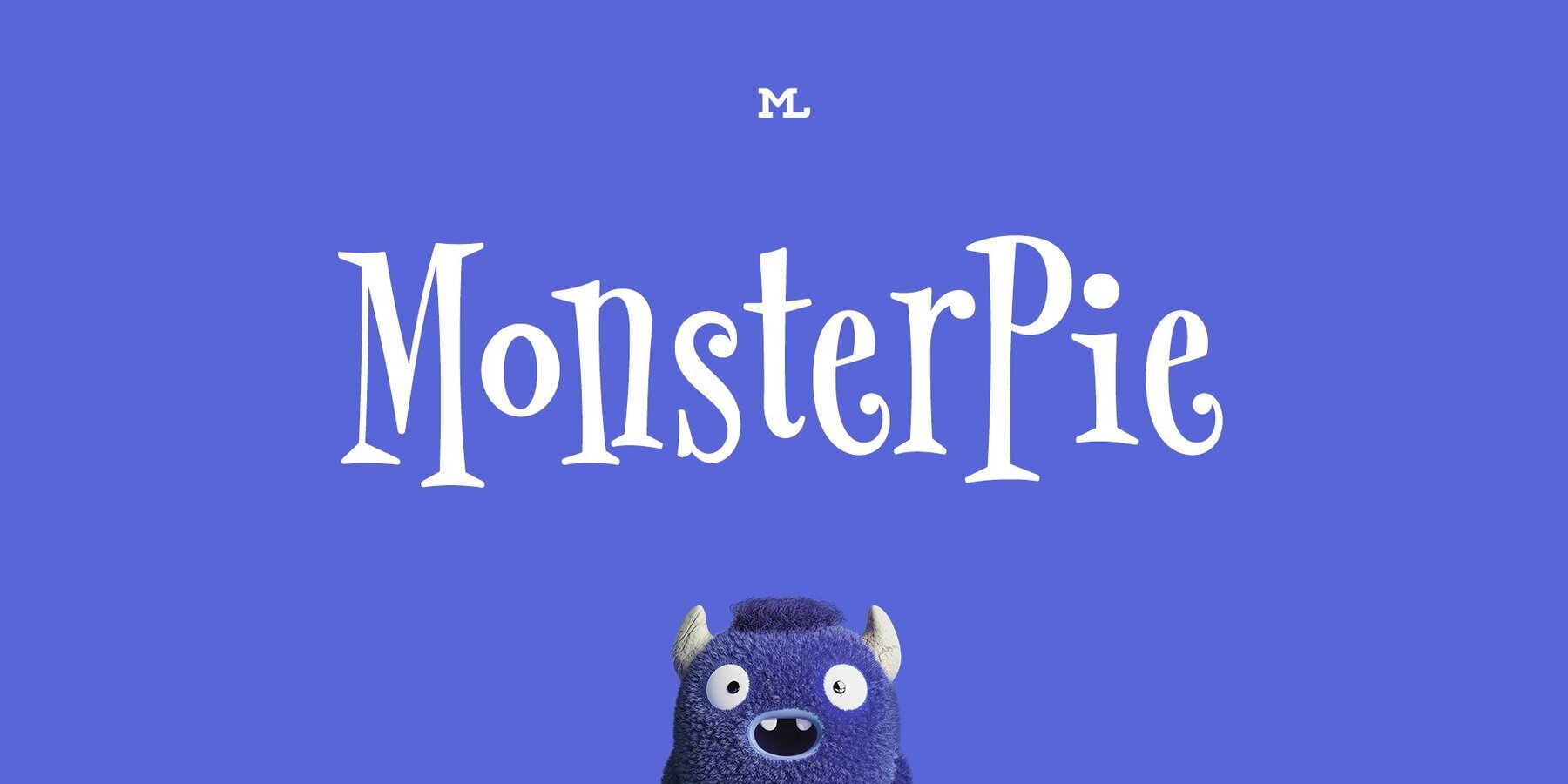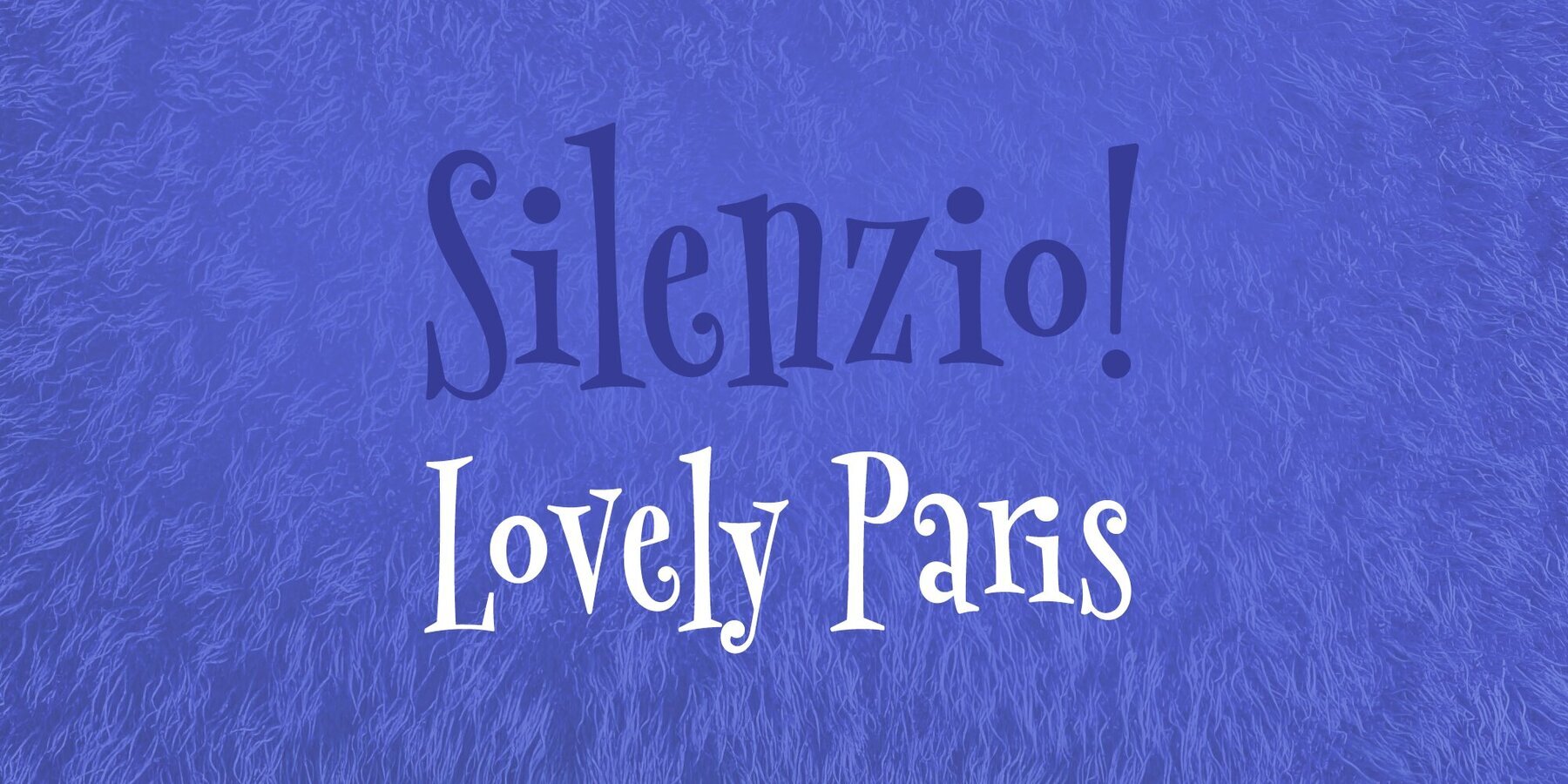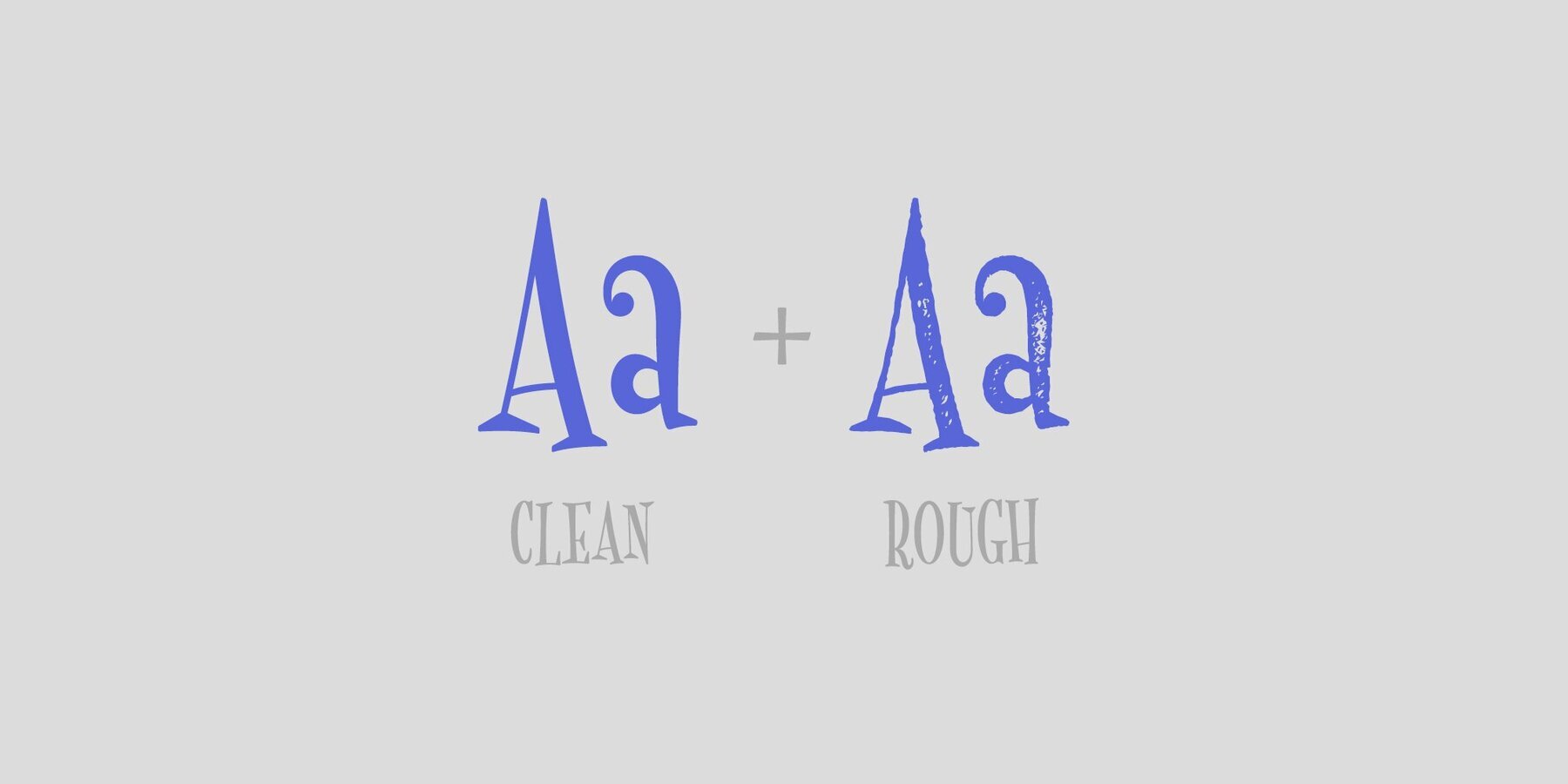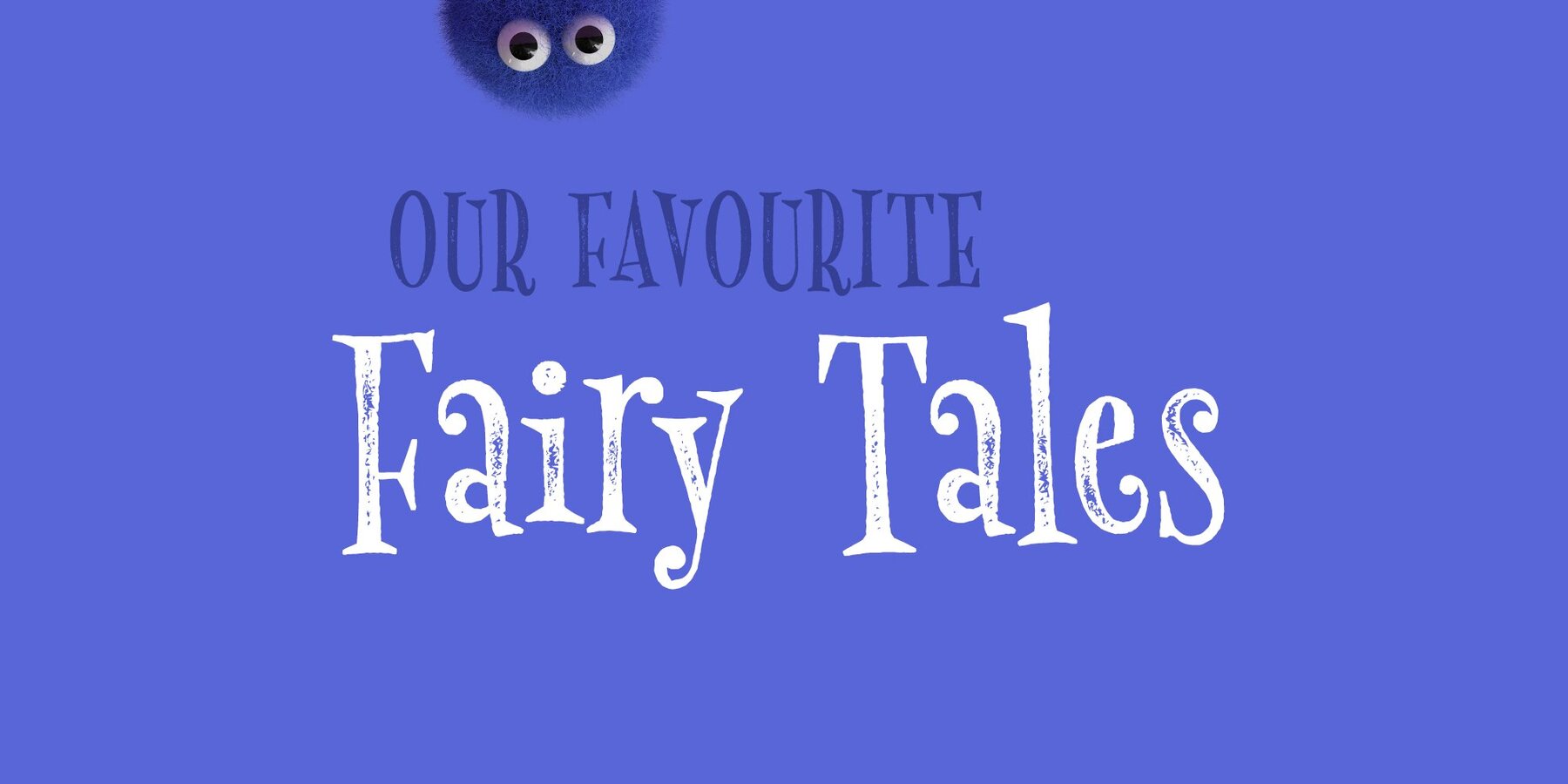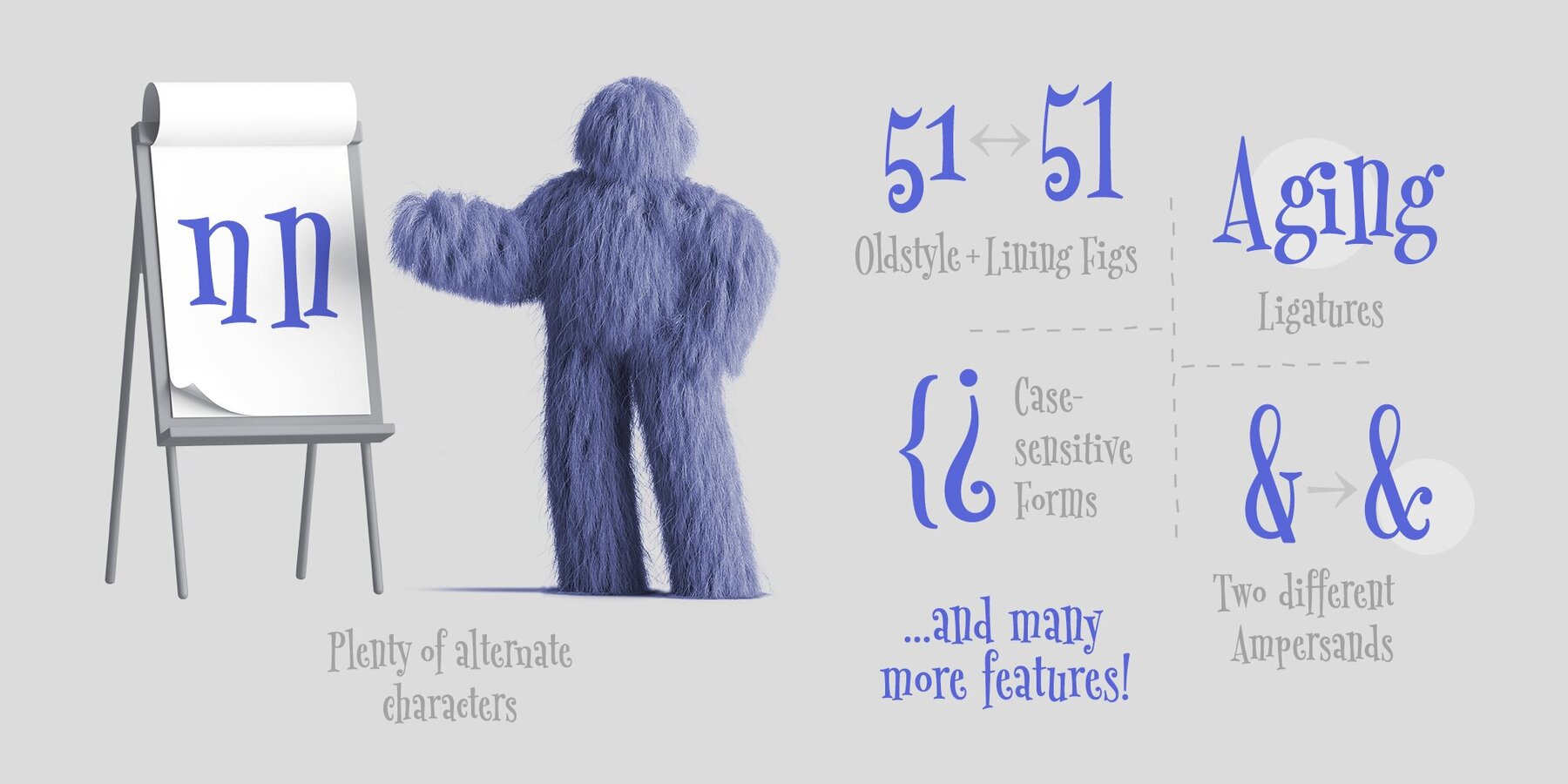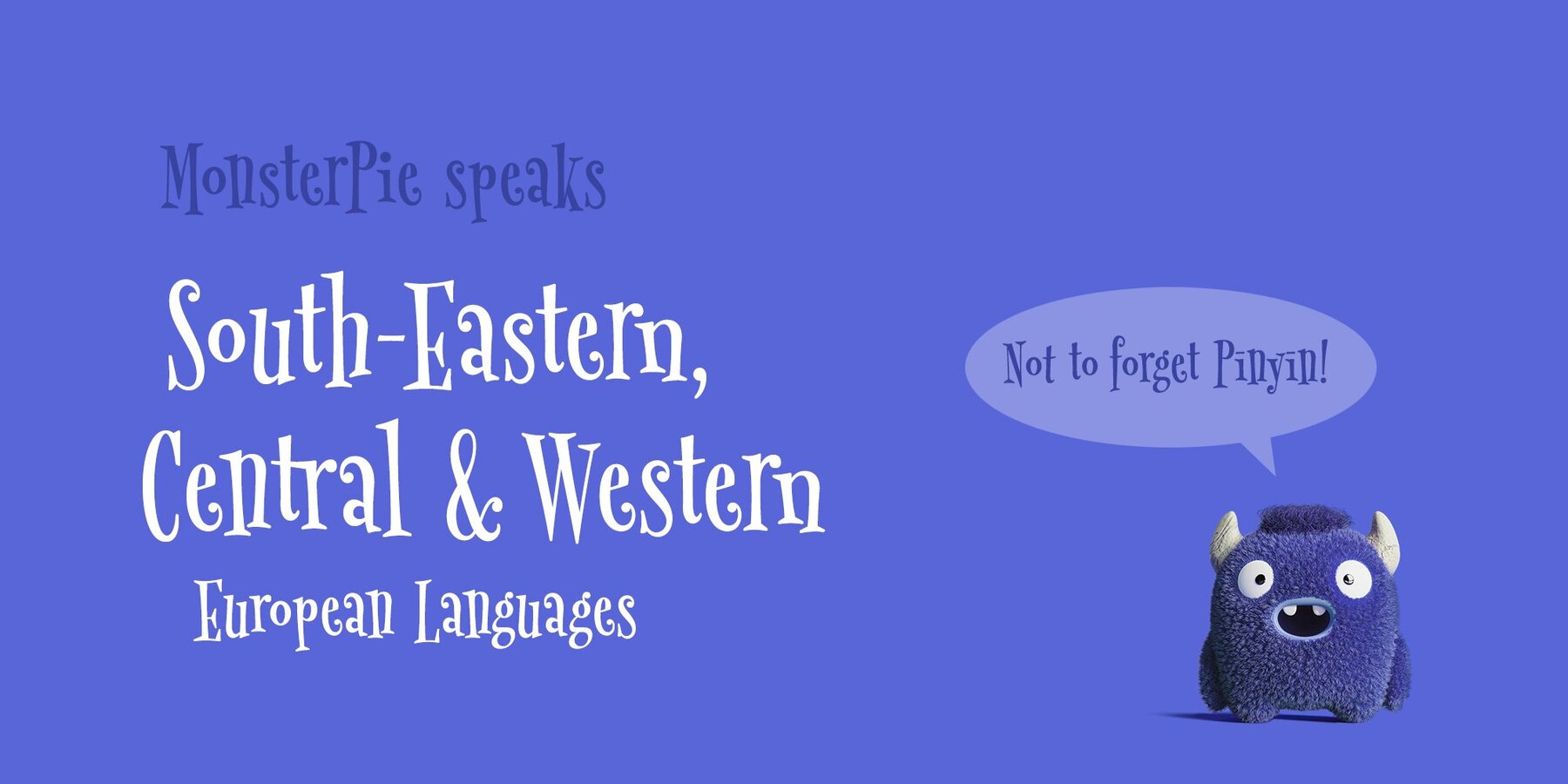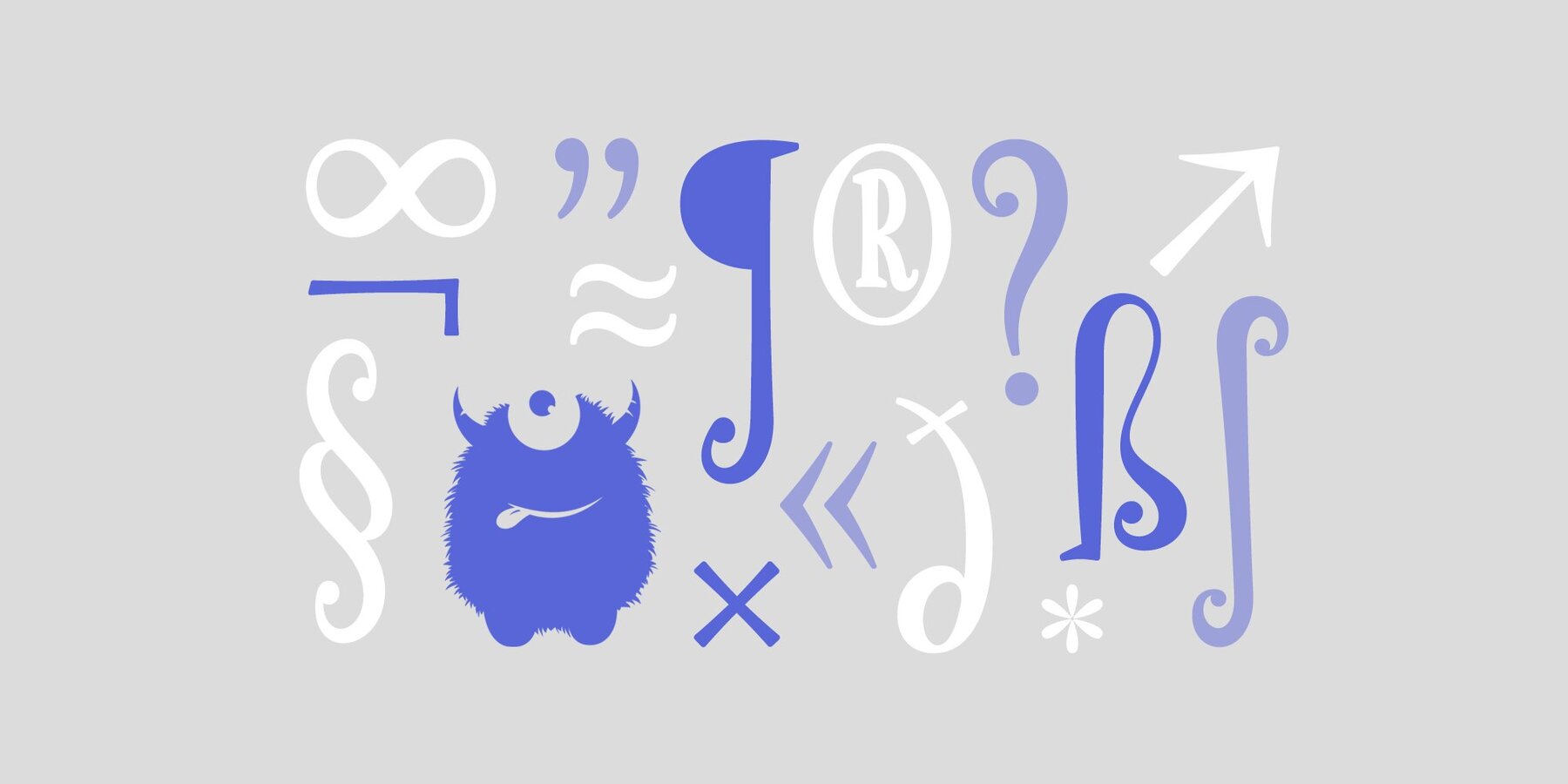
Say hello to MonsterPie. This font brings the funny appearance of irregular designed characters together with the classic look of the Didone typefaces from the 18th century – that makes it a good choice for theme parks, movie posters, games, greeting cards and kid’s products.
A large database and plenty of alternate characters work in the contextual alternates feature to keep your headlines bouncing all the time. Other implemented Opentype features are case sensitive forms, ligatures, arbitrary fractions and many more. On top, MonsterPie has a set of nice arrows, two different ampersands and extensive support for south-eastern, central and western european languages, as well as for Pīnyīn to offer. Designed by Marc Lohner in 2016.